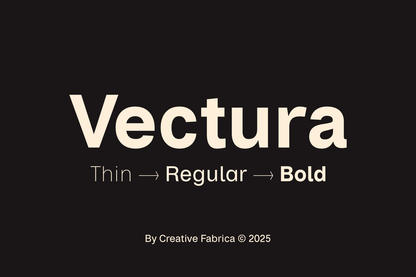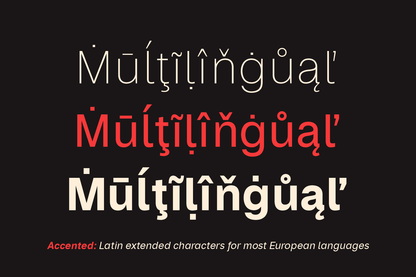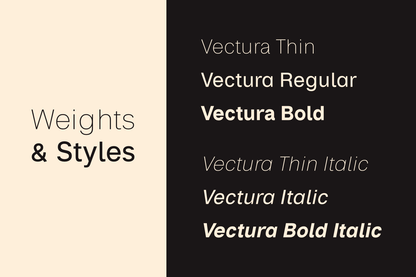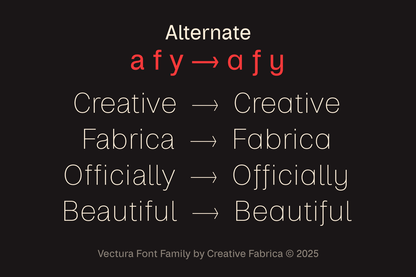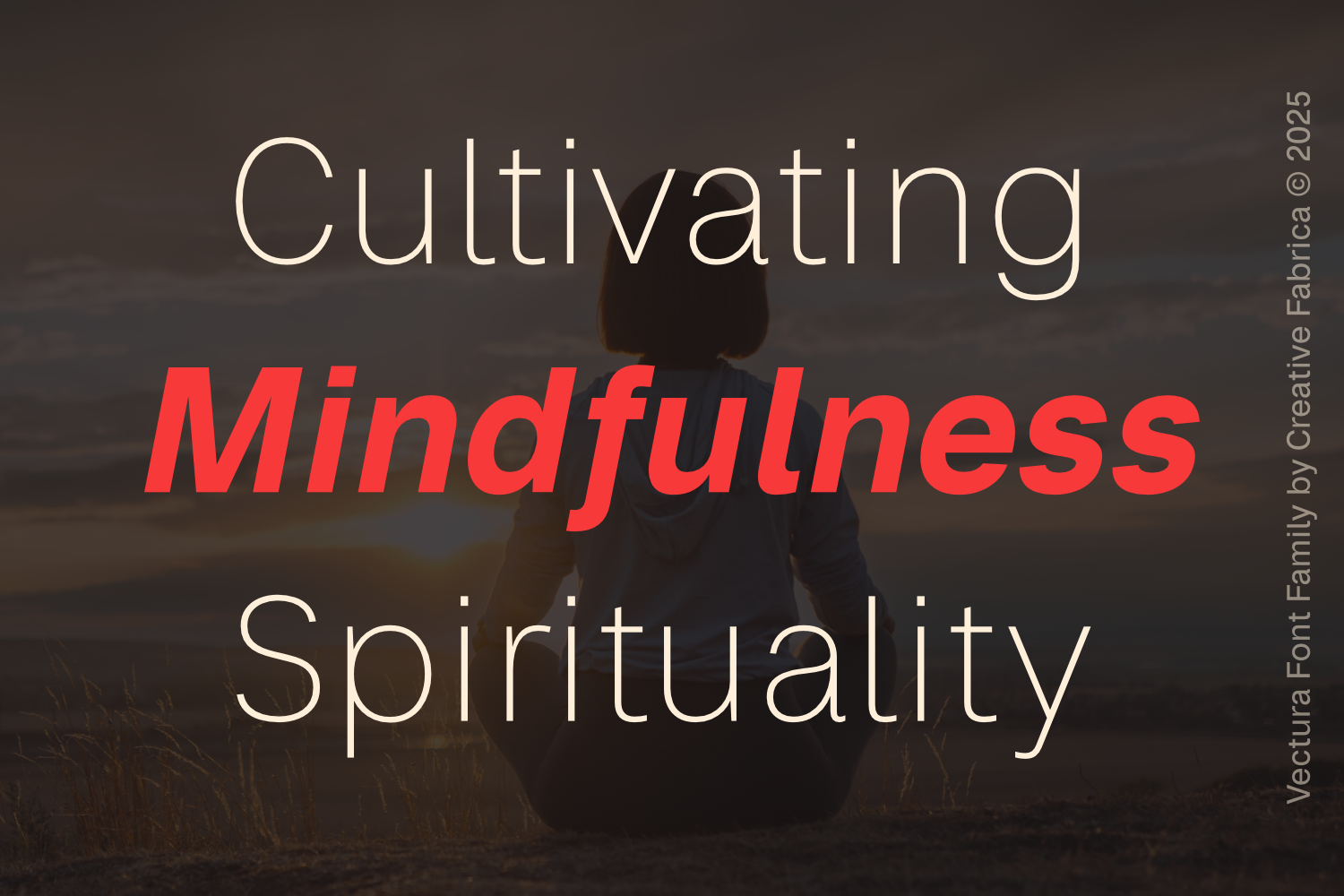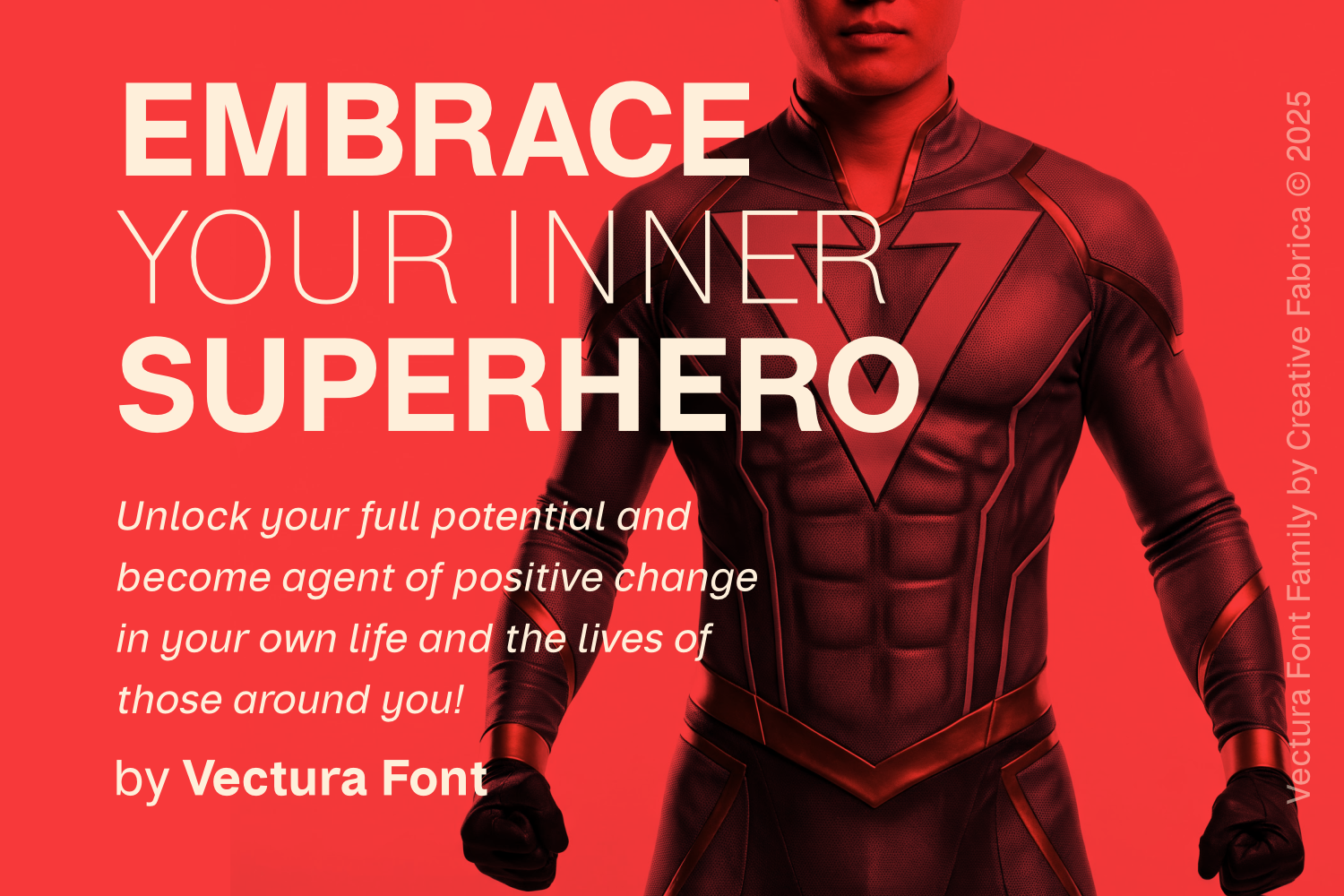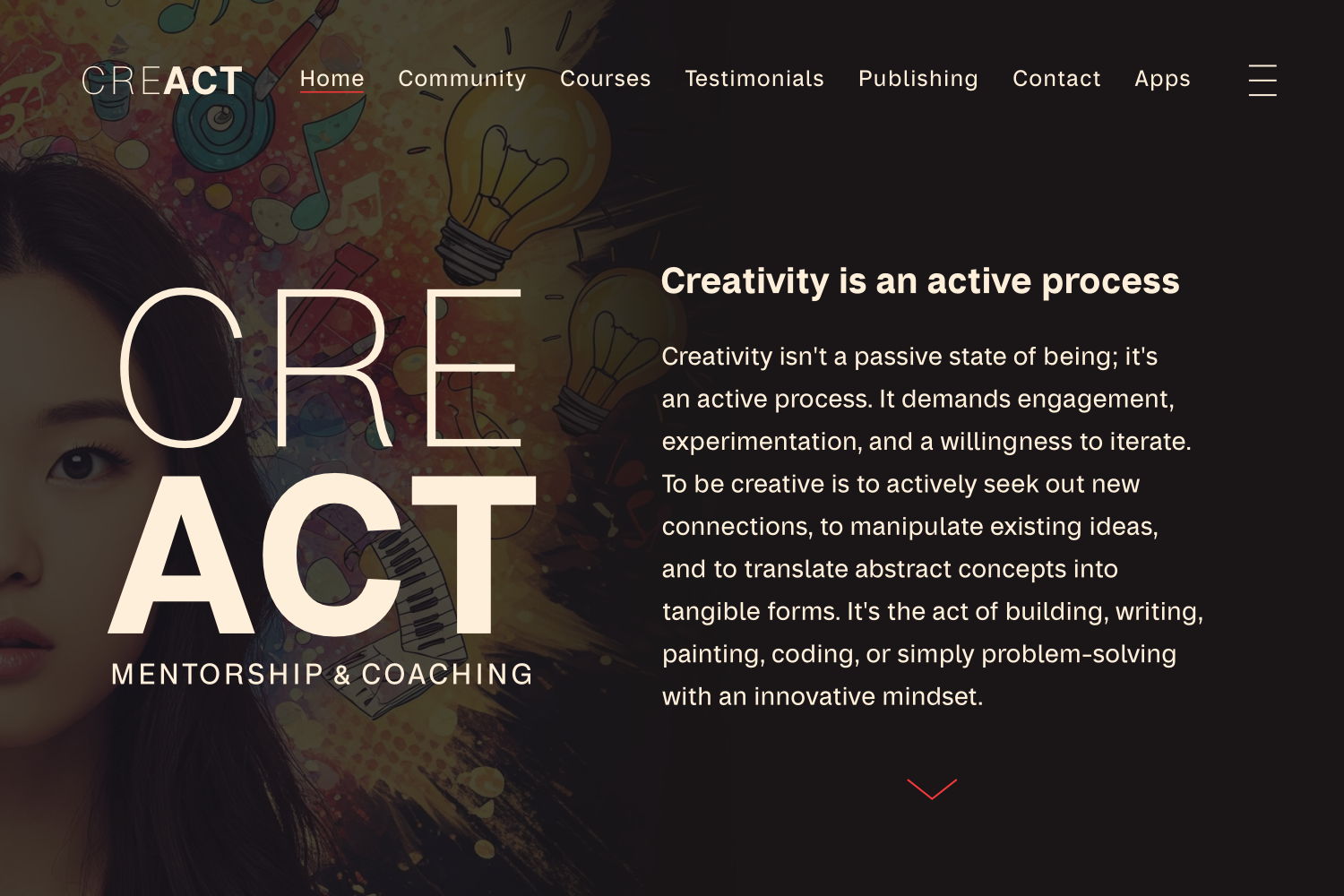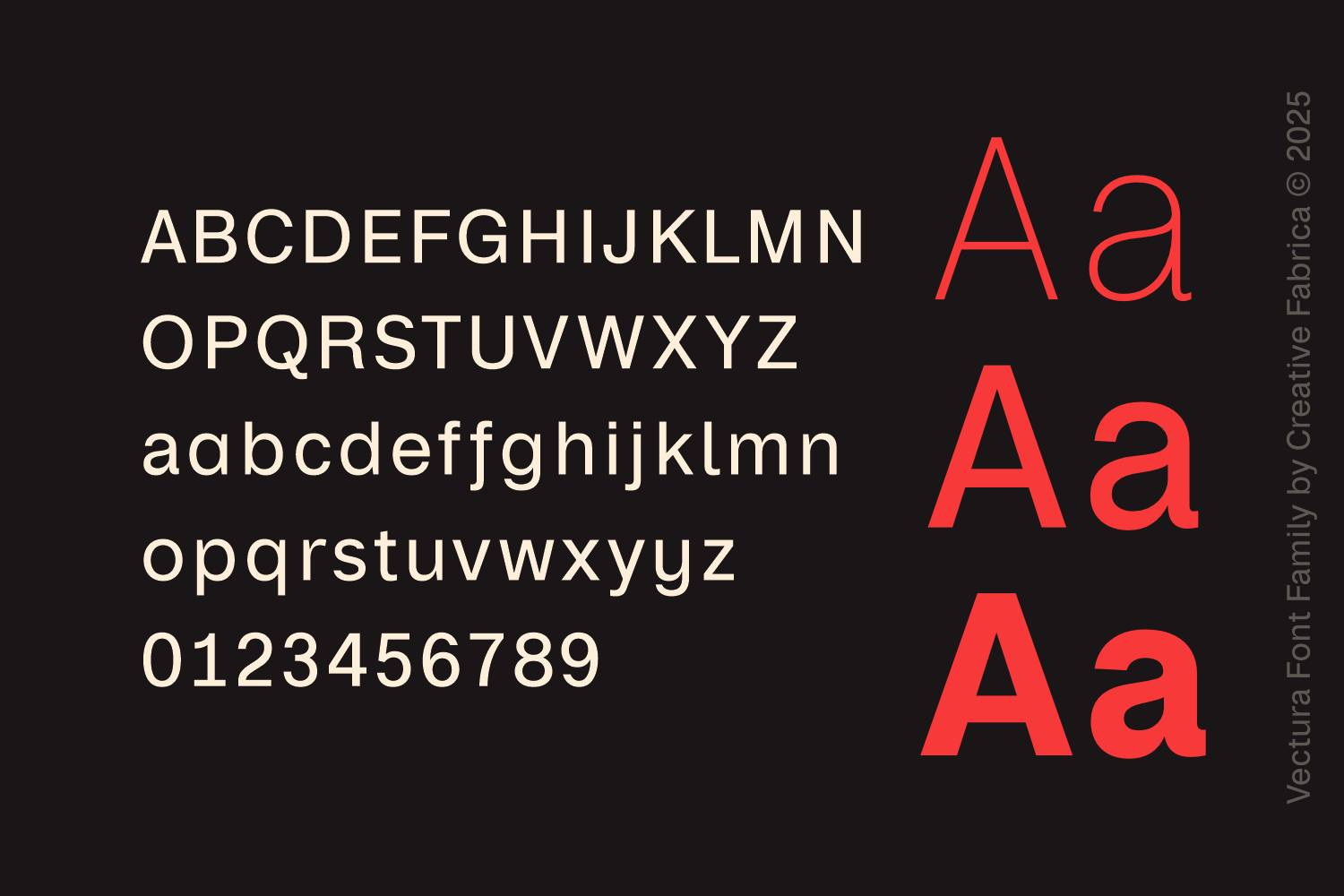
Vectura is a refined and modern sans-serif font inspired by the timeless simplicity of Helvetica. Designed for versatility, Vectura offers six styles, including Thin, Regular, Bold, and their italic versions, making it ideal for both professional and creative projects. With its clean letterforms, subtle alternates, and excellent readability, Vectura is perfect for branding, editorial design, web typography, and corporate identities. Whether you need a sleek, minimalist look or a bold, impactful presence, Vectura delivers elegance and functionality in every weight.